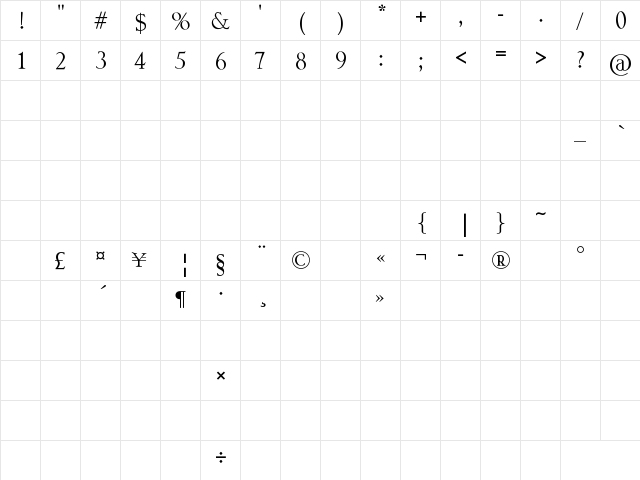
fontstock Regular
Design Context for fontstock Typeface
fontstock offers clean, dependable letterforms without strong stylistic allegiance, making it a practical choice for designers who need flexibility.